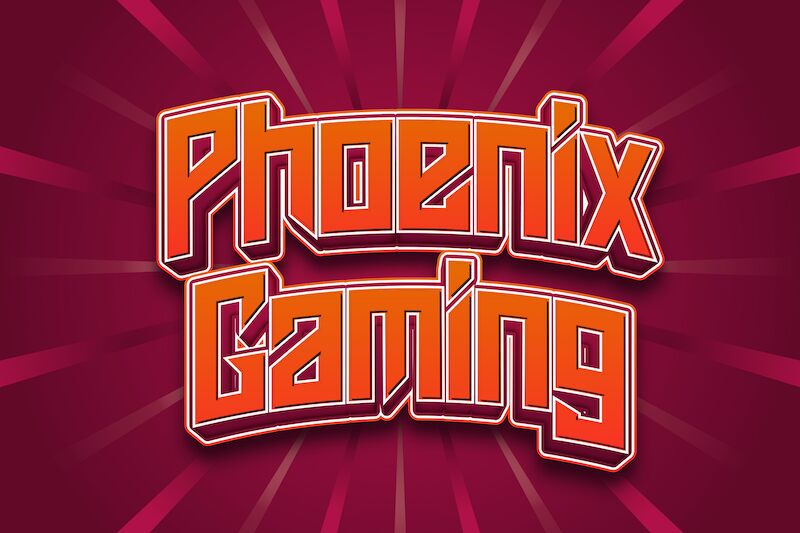
Phoenix Gaming
Phoenix Gaming is the ultimate display font for projects that require a futuristic touch. Designed by Virgiawan Listanto in 2021, this condensed font style is perfect for gaming logos, tech websites, and any other projects that need to make a bold statement. With its sleek and modern design, Phoenix Gaming captures the essence of technology and innovation. Its unique style will elevate your designs to the next level and make them stand out from the crowd. Whether you're designing an esports team logo or a cutting-edge website, Phoenix Gaming is the font you need to take your project to new heights.